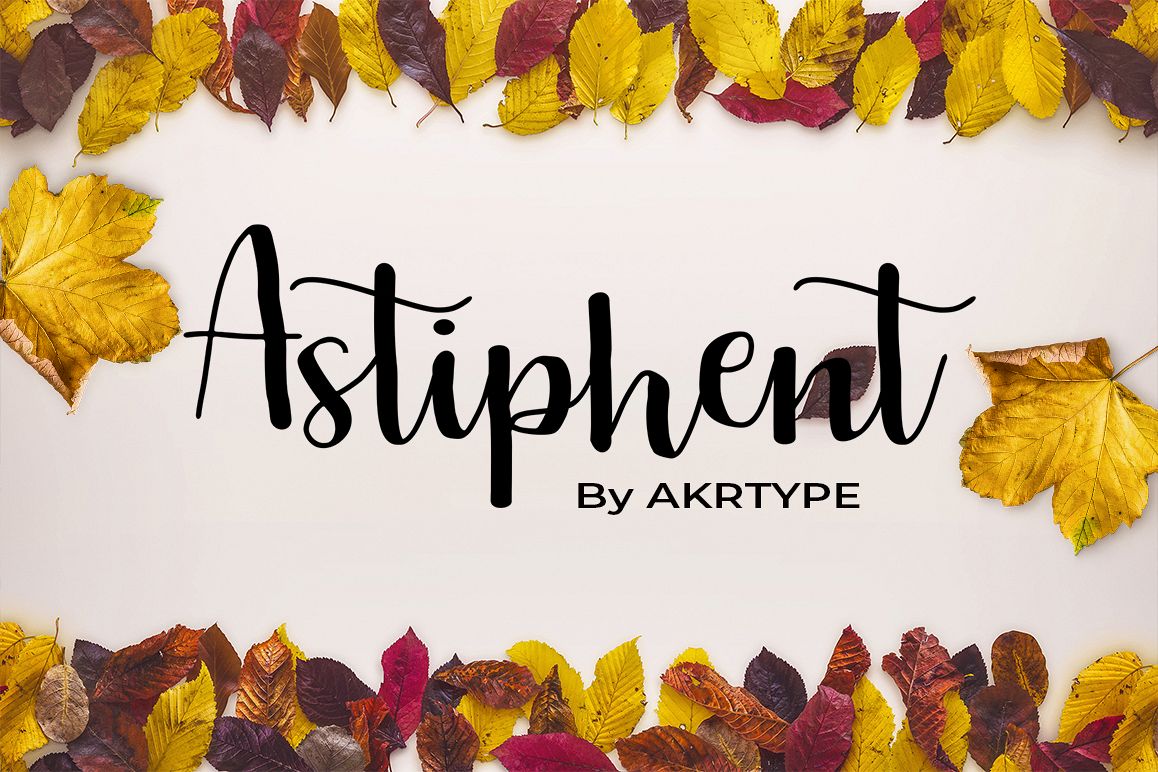
Astiphent
Astiphent italic
Astiphent
Astiphent is a brush typeface, it’s big & beautiful. Astiphent has lots of start and ending swashes. They are automatic in Astiphent, which is a cross-platform OpenType font with many OpenType features.
Therefore Astiphent comes with a some stylishtic character and slant version. Some of them are typographic, some made simply to create a more intimate, natural impression. For the same reasons we have added a set of snap-on beginning and ending swashes which attach to the lowercase letters of Astiphent.